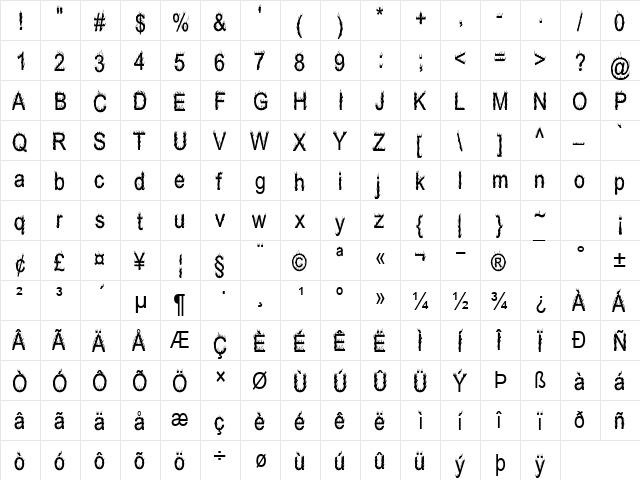
Hot, Hot, Hot Burning
Hot, Hot, Hot is a composed and adaptable typeface that performs quietly and consistently across a wide range of design contexts.